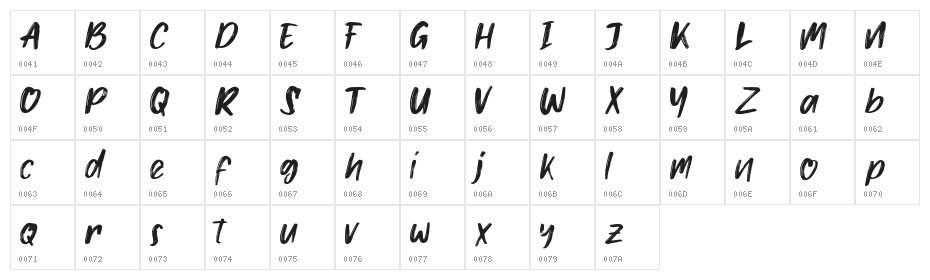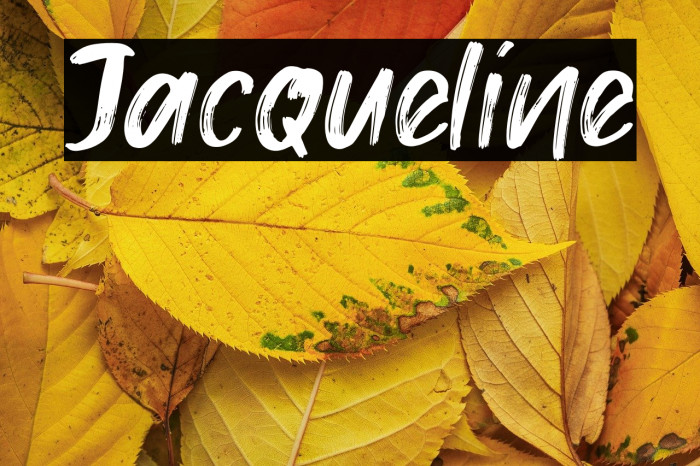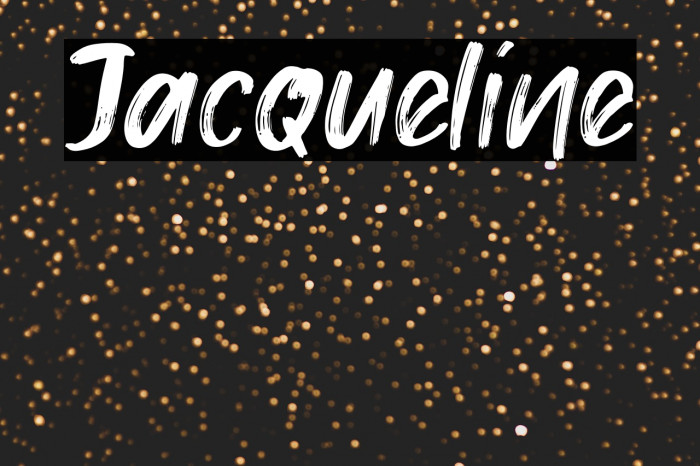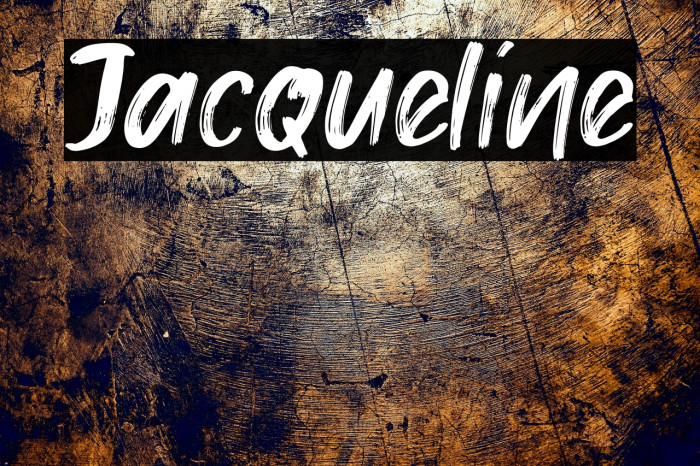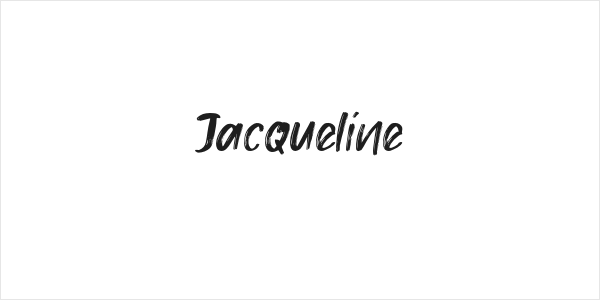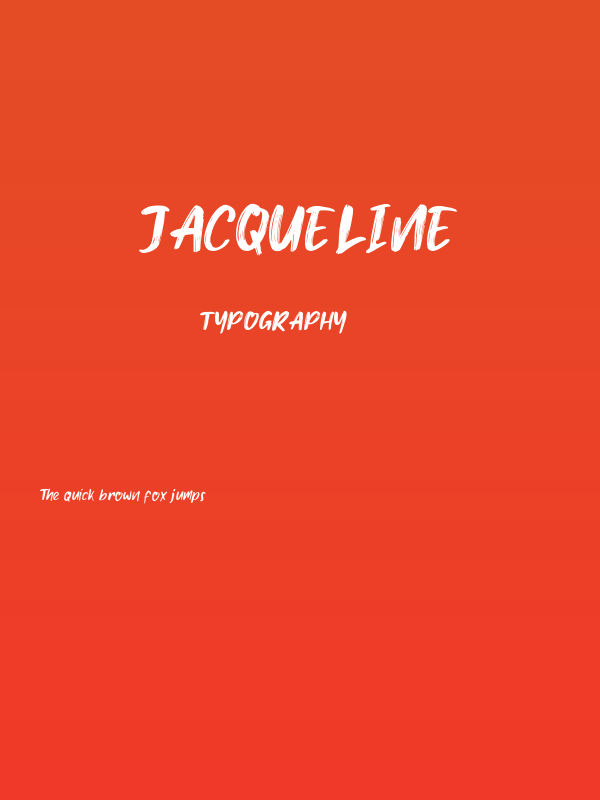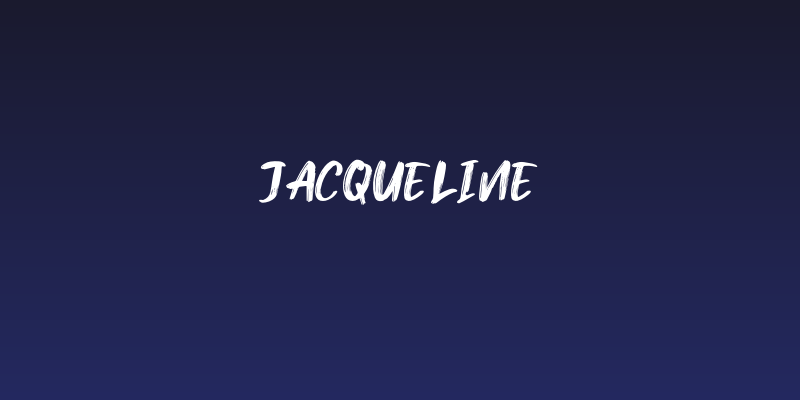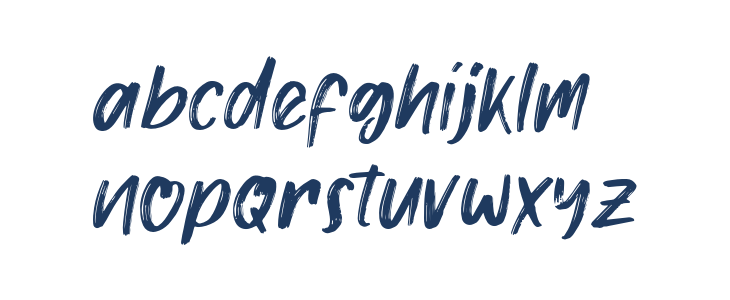
Jacqueline Font
Jacqueline Description
This font exhibits a dynamic and energetic brush script style, characterized by its bold and expressive strokes. The letters have a hand-painted appearance, with varying thickness that adds a sense of movement and fluidity. The uppercase and lowercase characters maintain a consistent style, with some letters featuring distinctive swashes and flourishes. The texture of the strokes gives it a raw, artistic feel, making it stand out in any design. This font is perfect for projects that require a personal touch or a creative flair.
| Proposed Projects | Ideal for branding, posters, invitations, and any design needing a personal, artistic touch. |